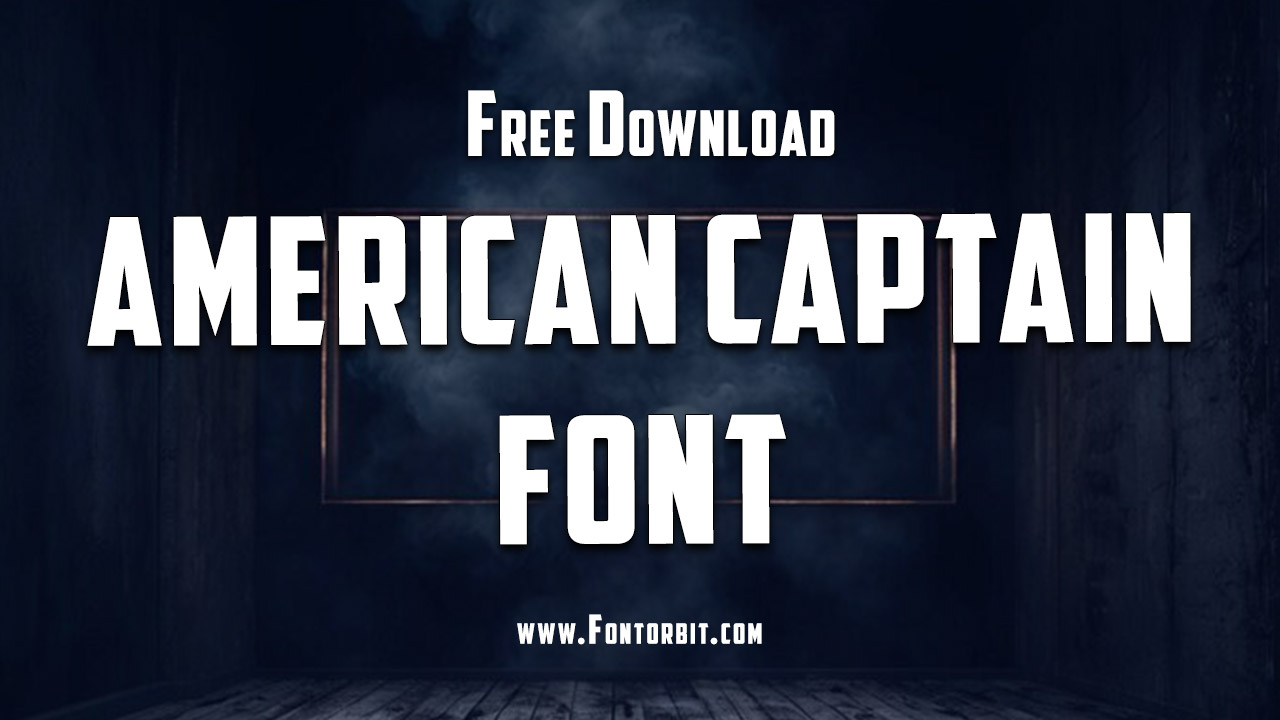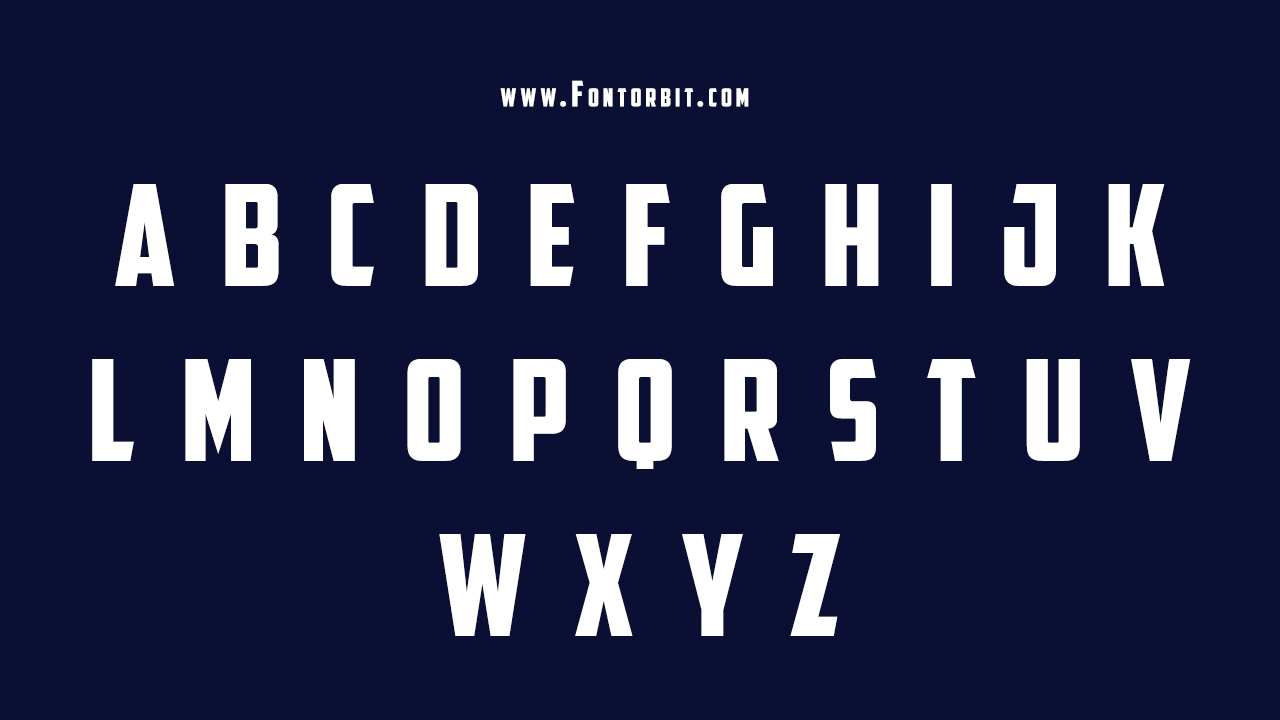
American Captain is a bold and commanding typeface that captures the essence of strength, resilience, and patriotism. Designed by The Fontry, this font is deeply rooted in American heritage and is reminiscent of vintage military posters and insignias.
With its narrow, tall, and bold design, American Captain is ideal for projects that require a powerful and authoritative visual impact. Its strong character and historical appeal make it a popular choice among designers looking to convey themes of bravery and leadership.
The American Captain Font Family
The American Captain font family includes a single, regular style that comes with a comprehensive set of characters, including uppercase and lowercase letters, numbers, punctuation marks, and various special glyphs.
- Military Posters
- Movie Titles
- Sports Team Logos
- Branding and Advertising
- Patriotic Merchandise
American Captain font excels in creating attention-grabbing headlines, impactful display text, and other design elements that benefit from a strong, bold style. Its narrow and tall letterforms make it a perfect fit for designs that require a sense of authority, courage, and American pride.
To Conclude
American Captain Font is a versatile choice for various design contexts due to its bold and commanding design. The font is well-suited for both digital and print media, making it a popular option among designers.
Its striking style fits seamlessly into a wide range of design projects, adding a sense of power and confidence to the visual narrative.
2.What Is The Origin Of The American Captain Font?
American Captain Font was designed by The Fontry, inspired by vintage military typography and the strength of American heroes.
4.What Makes American Captain Font Unique?
The unique combination of its bold, tall, and narrow design with a historical and patriotic feel makes American Captain Font stand out.